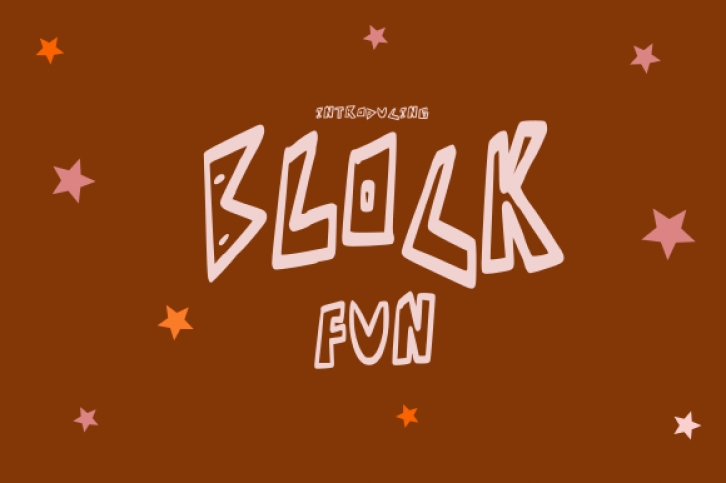
Block Fun is a fun and quirky display font. Whether you use it for cartoon-related designs, children’s games, or just any creation that requires a funky touch, this font will be an amazing choice.